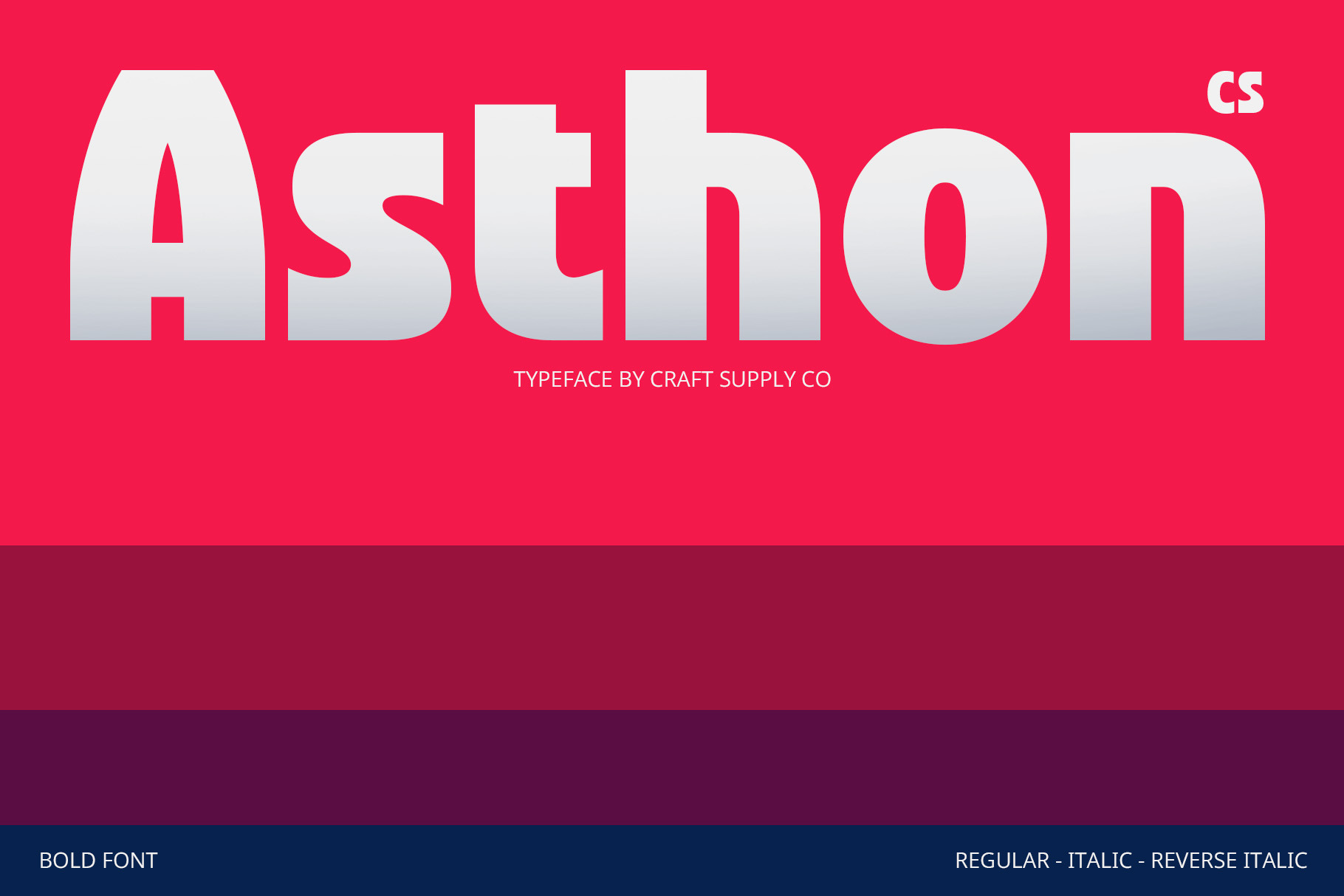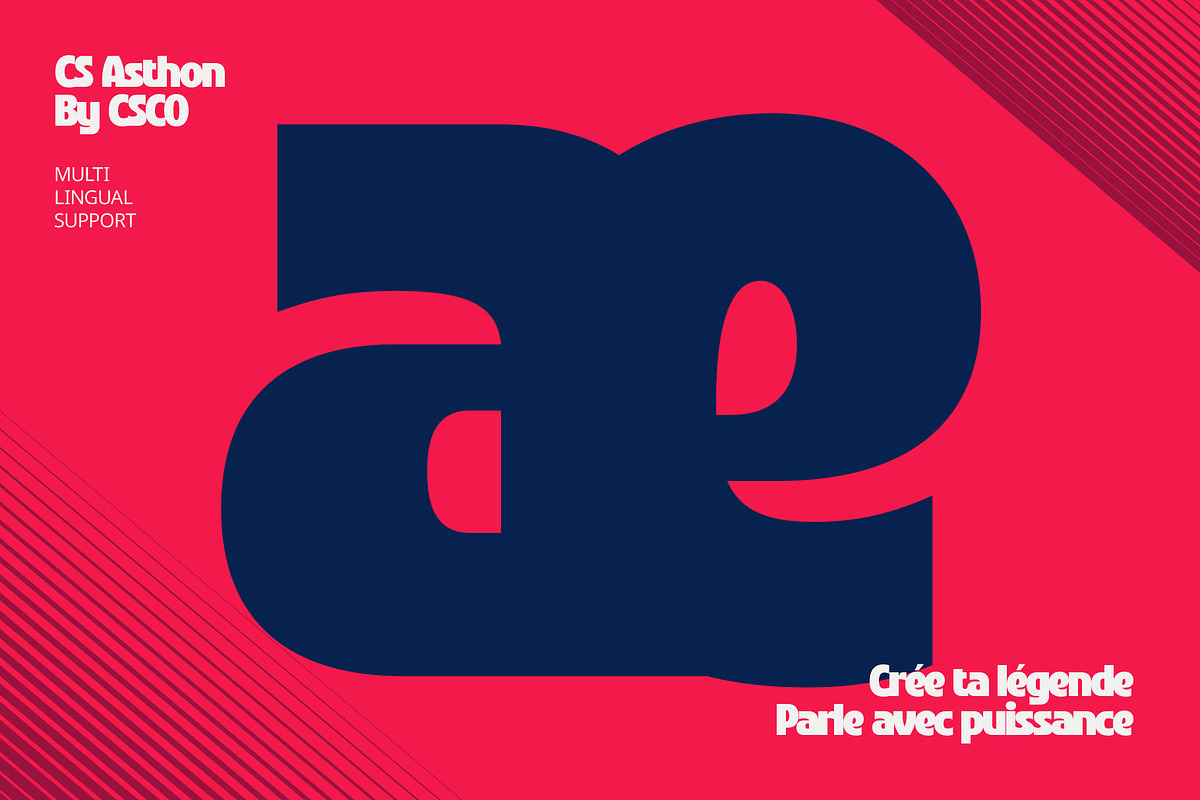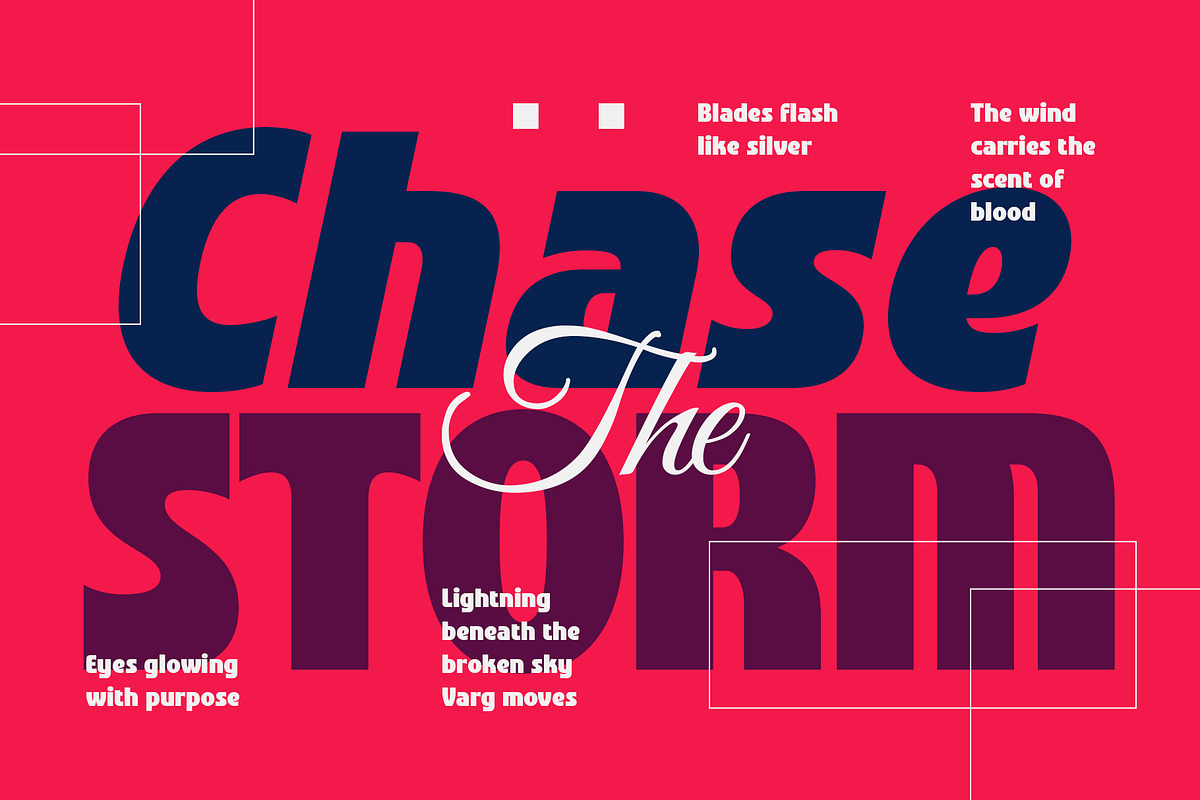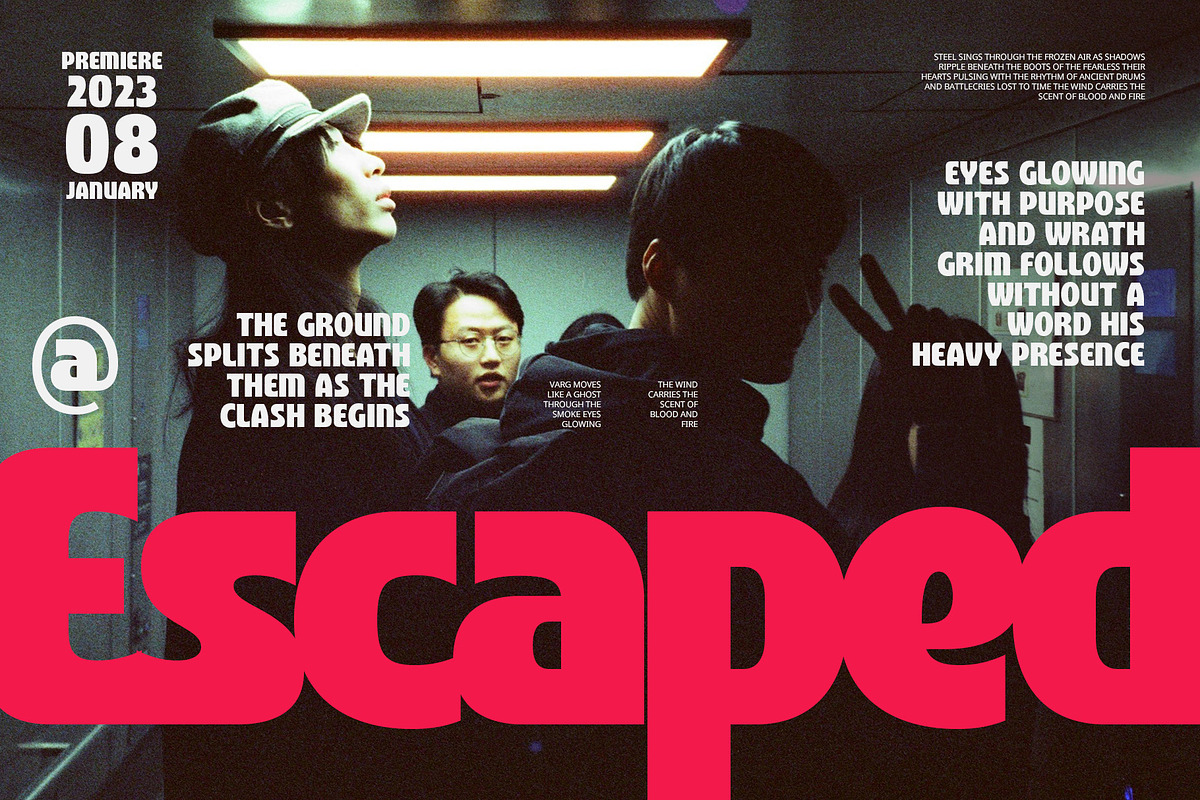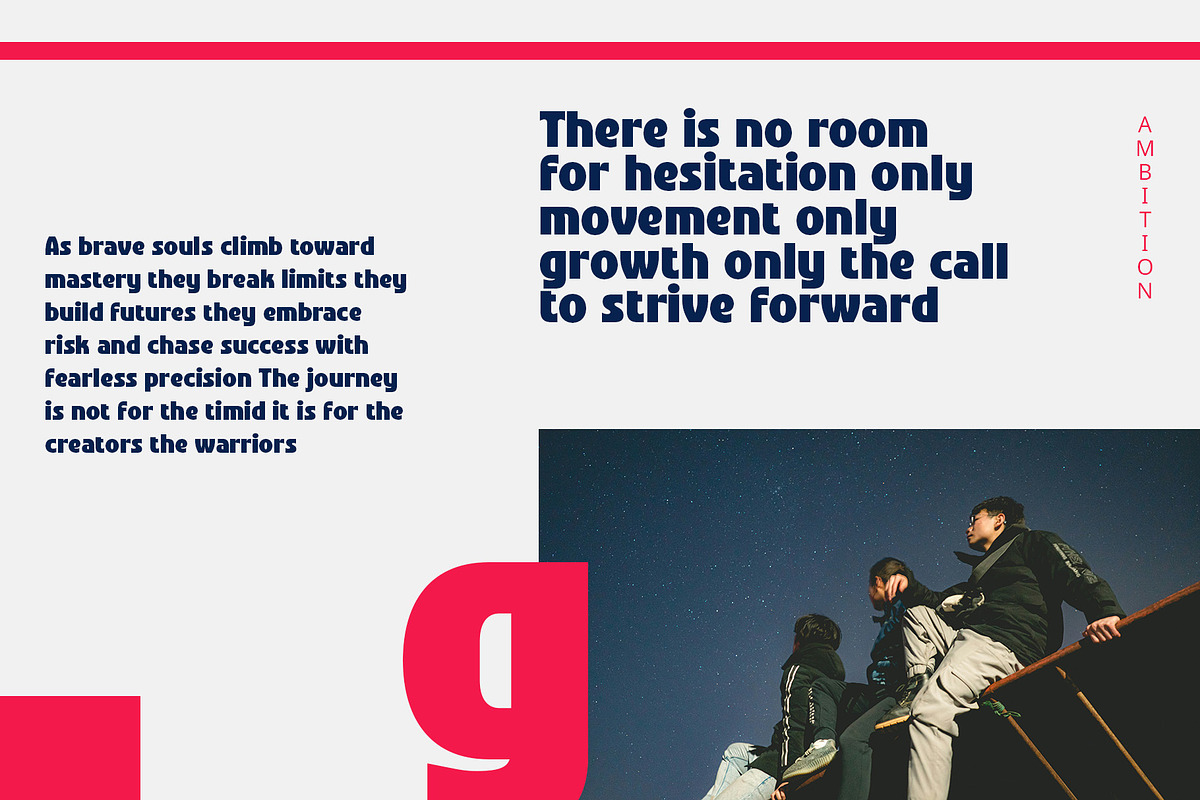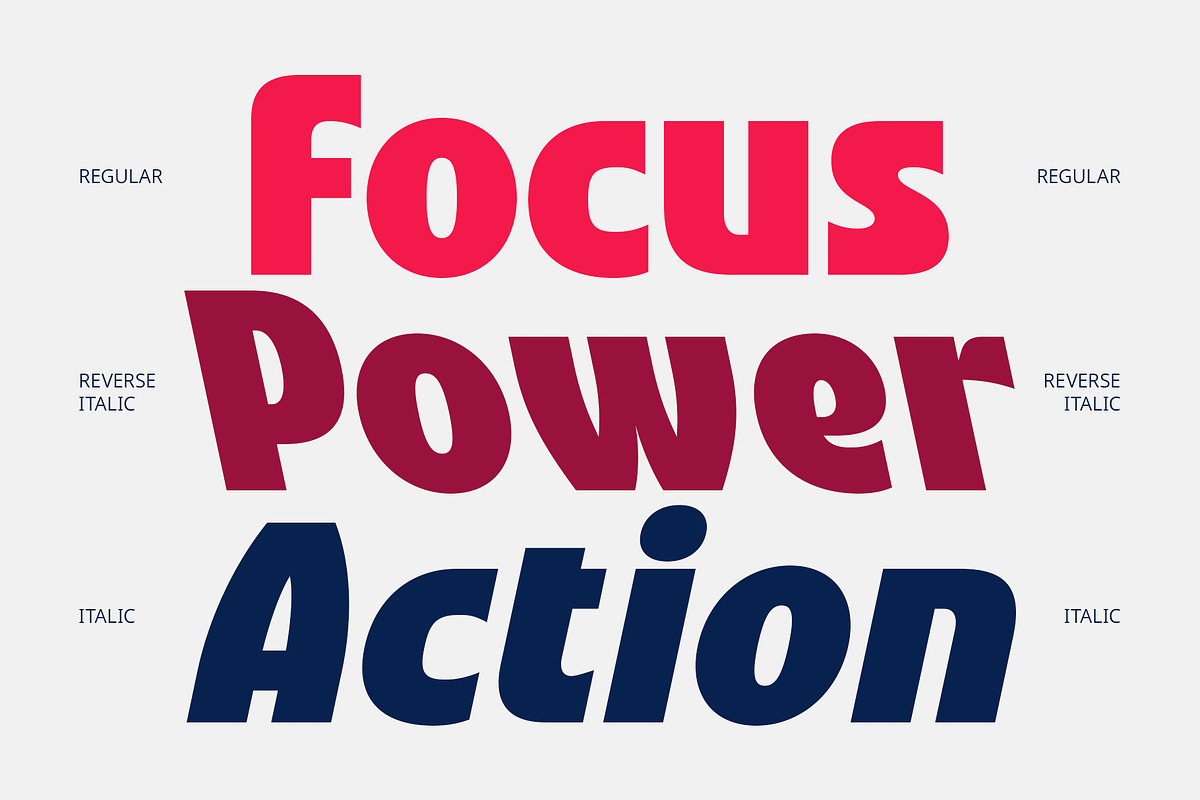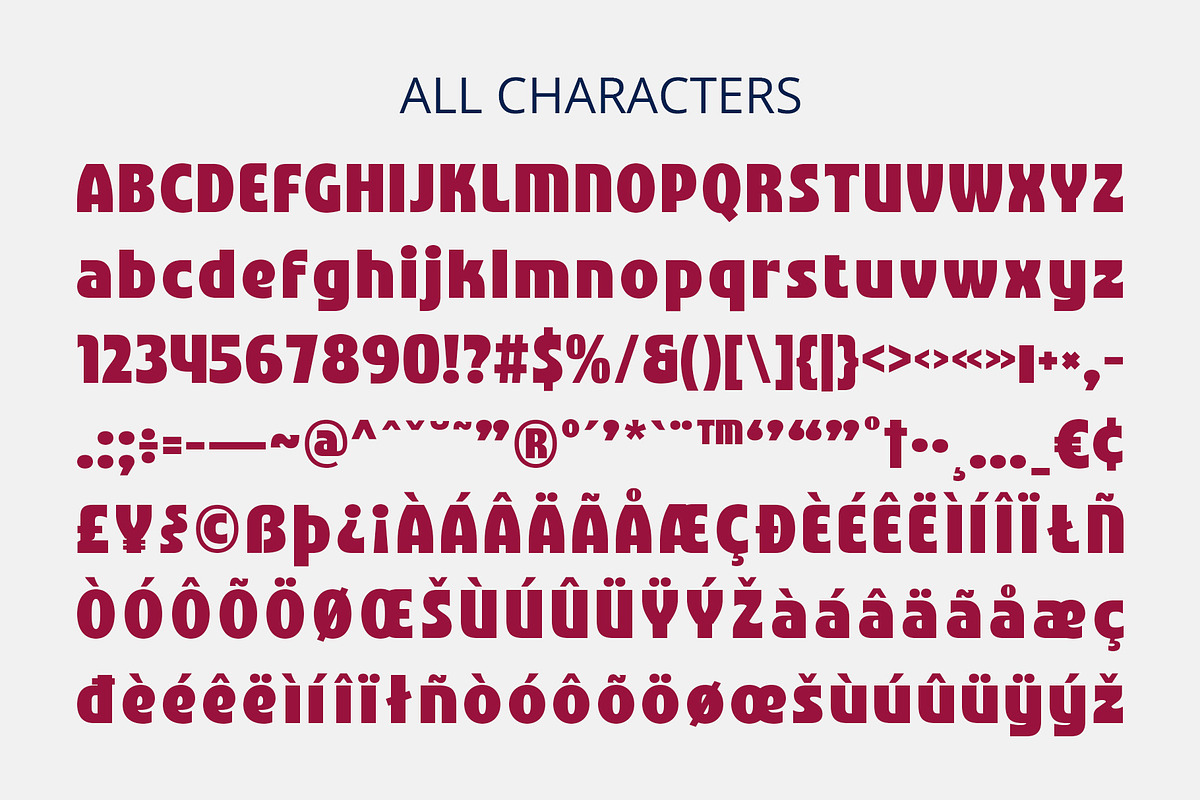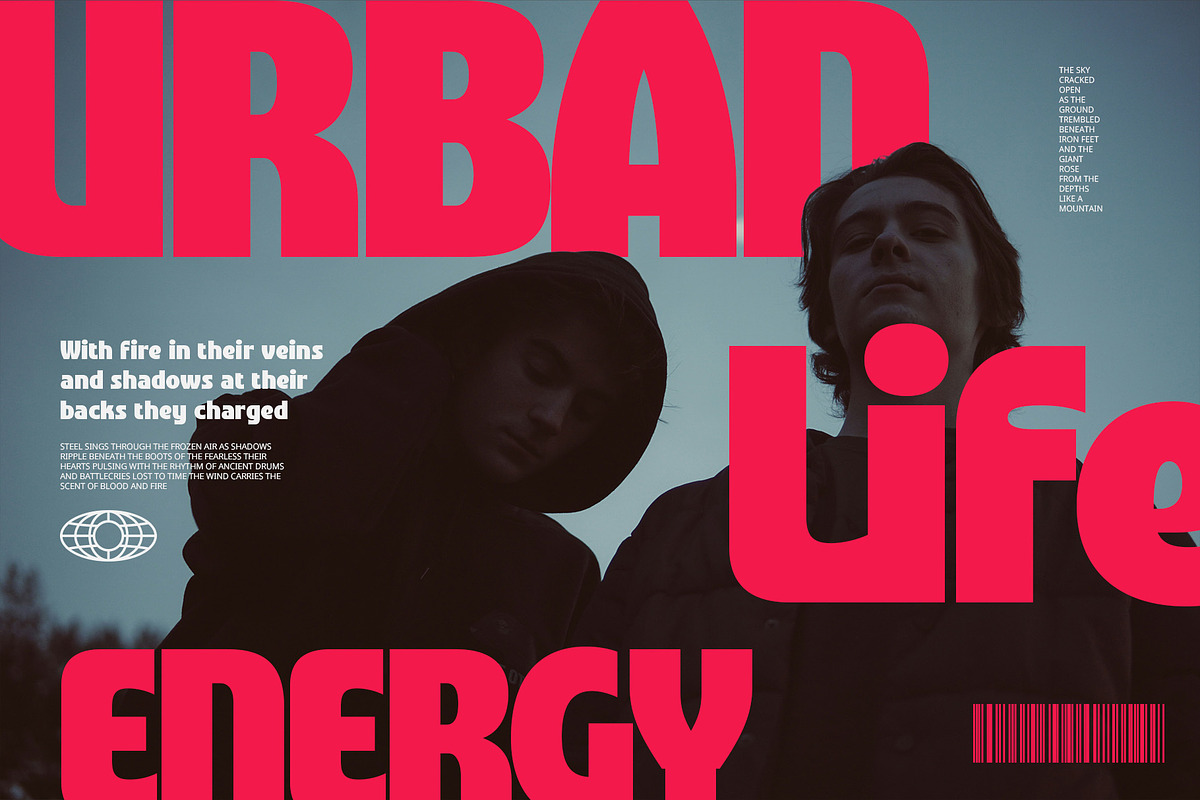
CS Asthon – Bold Font
CS Asthon Font – Bold Clarity for Modern Design
Clean Design with Confident Presence CS Asthon is a bold sans-serif font featuring a clean, strong, and modern structure. Its straightforward geometry and minimalistic approach give it a powerful visual presence, perfect for designers seeking to communicate clarity, confidence, and directness in their work. It’s a font built to stand out without distraction.
Strength and Precision in Every Letter With its bold weight and sharp edges, CS Asthon conveys a tone of professionalism and authority. The minimal decorative elements allow the strength of the form to shine, making it ideal for use in branding, editorial design, and UI interfaces where messaging must be clear and impactful.
Modern Appeal Across Media The contemporary style of CS Asthon suits a wide range of digital and print applications. Whether it’s a technology brand, startup identity, or sleek website header, this font delivers an effortlessly modern aesthetic that stays readable and eye-catching across screen sizes and formats.
Built for Versatility and Impact From bold headlines to standout logos, CS Asthon is designed for visual efficiency and aesthetic consistency. Its structured forms and clean lines make it a versatile tool for designers aiming to craft modern, dynamic, and professional compositions in any creative field.